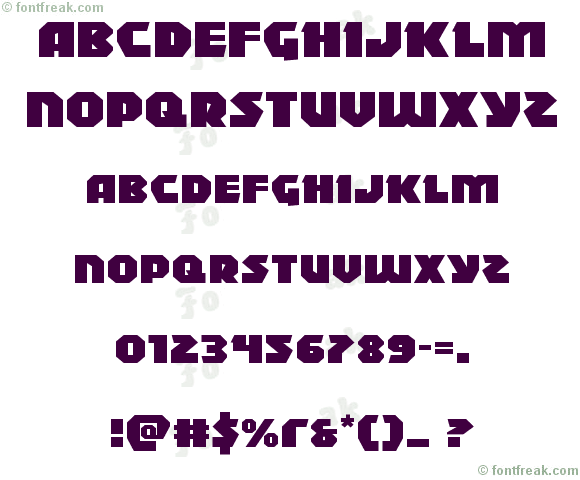
Blitzstrike Laser Regular
Blitzstrike Laser Regular, designed by Daniel Zadorozny, is a captivating display font that falls into the category of decorative typefaces. This font features bold, angular letterforms that evoke a sense of futuristic energy and innovation. Its stroke weight is consistently strong, providing a commanding presence that makes it ideal for attention-grabbing designs. The contrast between the thick strokes and the sharp angles creates a dynamic visual appeal, while the spacing offers a balanced readability, ensuring that your messages are clear even at a distance.
This font is particularly well-suited for a variety of creative projects. It shines in contexts such as movie posters, where its striking design can draw viewers' attention and convey a sense of excitement. Additionally, it works wonderfully for video game titles, giving a contemporary edge that resonates with a tech-savvy audience. You might also consider using Blitzstrike Laser Regular for promotional materials, such as flyers or banners for tech events, as well as social media graphics aimed at engaging younger demographics. Small business owners looking to establish a bold brand identity will find this font an excellent choice for logos and product packaging.
Targeted primarily at graphic designers, content creators, and marketing professionals, Blitzstrike Laser Regular offers an eye-catching alternative for those seeking to add flair to their work. The font stands out not only for its distinctive style but also for its versatility in various applications. With the option for a Blitzstrike Laser Regular font free download, it invites creative minds to explore its potential without any financial commitment. Embrace the energy of this font and let it elevate your design projects to new heights.